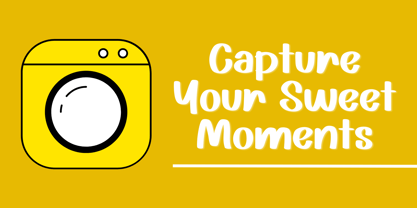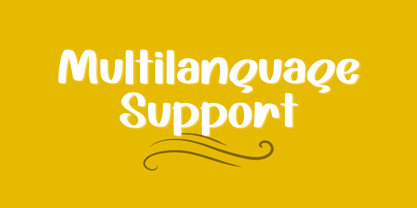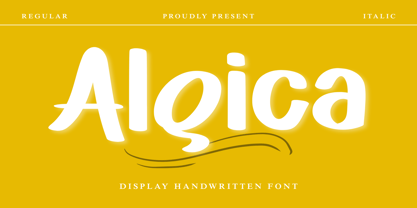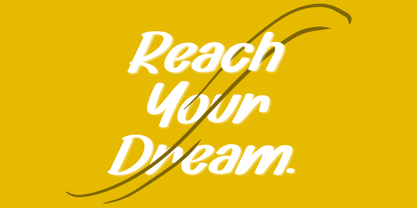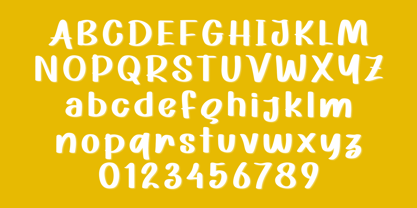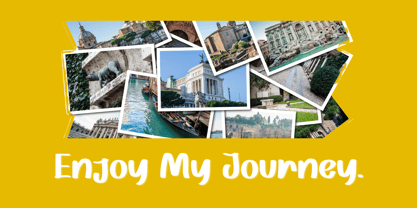
The Algica Font Family was designed by Ahmad Afandi and published by Letterafandi Studio. Algica contains 2 styles and family package options.
Experience the charm and versatility of Algica, an eye-catching handwritten display font. Echoing the fluid grace of handwritten cursive script, Algica offers a dash of authenticity to your design projects. Invite creativity into typography with this mesmerising personalized masterpiece. Algica, more than just a font, it is a unique expression of artistic creativity and personality. Illuminate your design canvas with an innovative handwritten font that merges design aesthetics with user-friendly functionality; discover Algica.